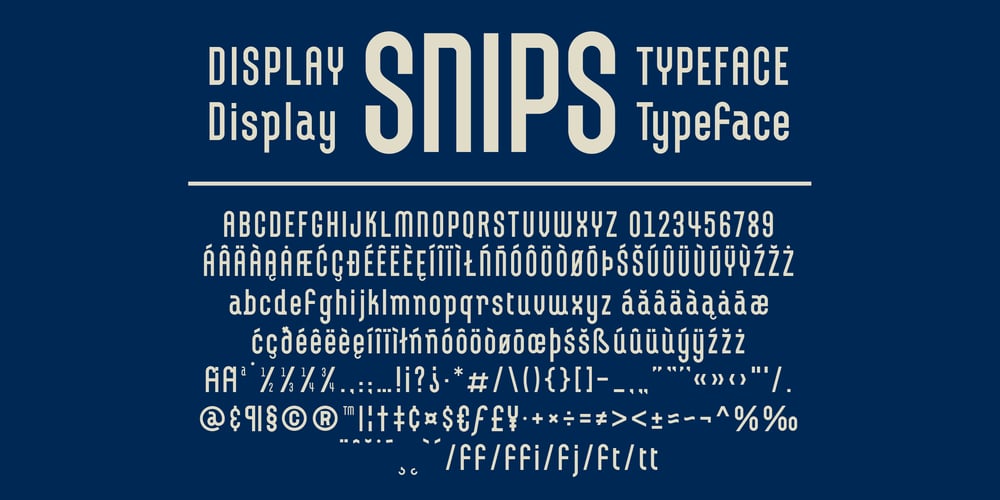
Snips
Snips font
Snips Font Family was designed by Kendrick Kidd and published by G.A.R.M. Company. Snips contains 1 styles and family package options. Monoweight / Geometric / UtilitarianAlthough sturdy straight out of the keyboard, this true mono weight sans is built for more. Snips sacrifices several traditional letterform nuances for the sake of being easily broken apart and customised. Its modular construction is perfect for novice and experienced designers interested in modifying existing typefaces to fit their project needs.Font Key Features: Uppercase & Lowercase Characters Numbers & Punctuation Multiple Language Support Single Weight Usage:Snips provides an excellent base for lettering and logotype projects. It’s modular construction makes it easy to break apart and rebuild into unique custom letterforms, the potential variations are endless. In addition, Snips is also great for headlines and callouts in you favorite working class / industrial era designs.